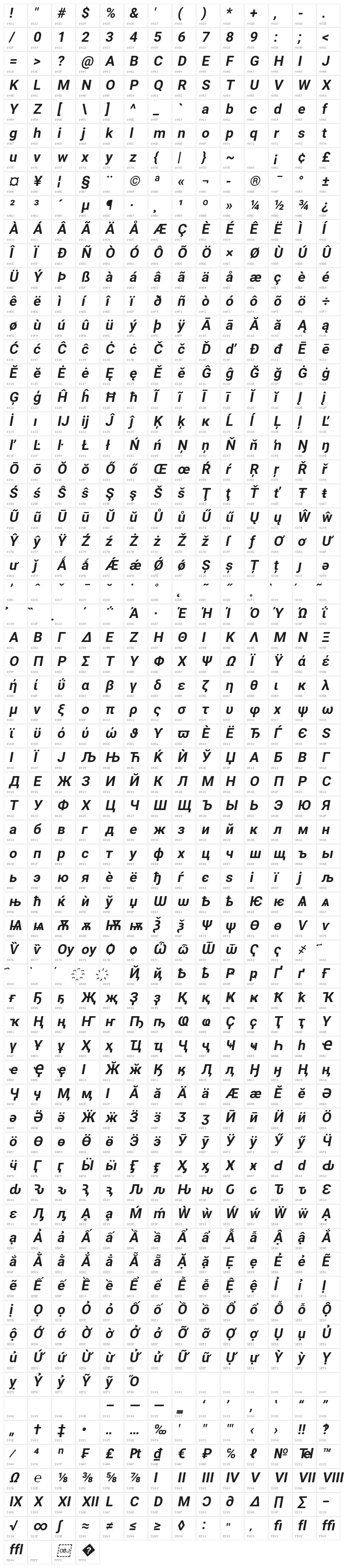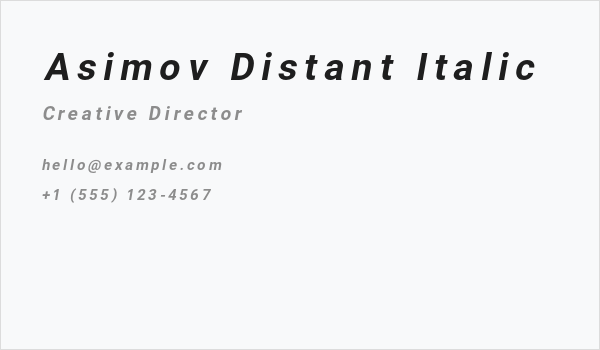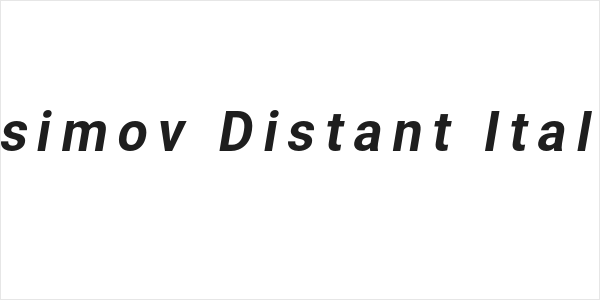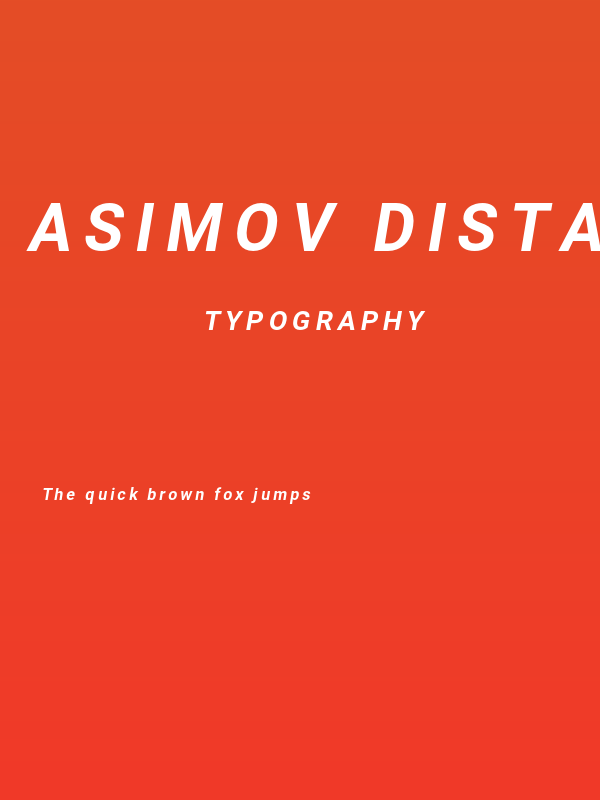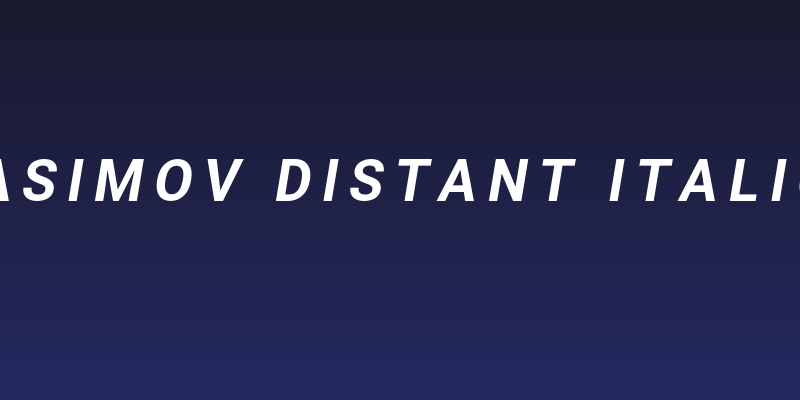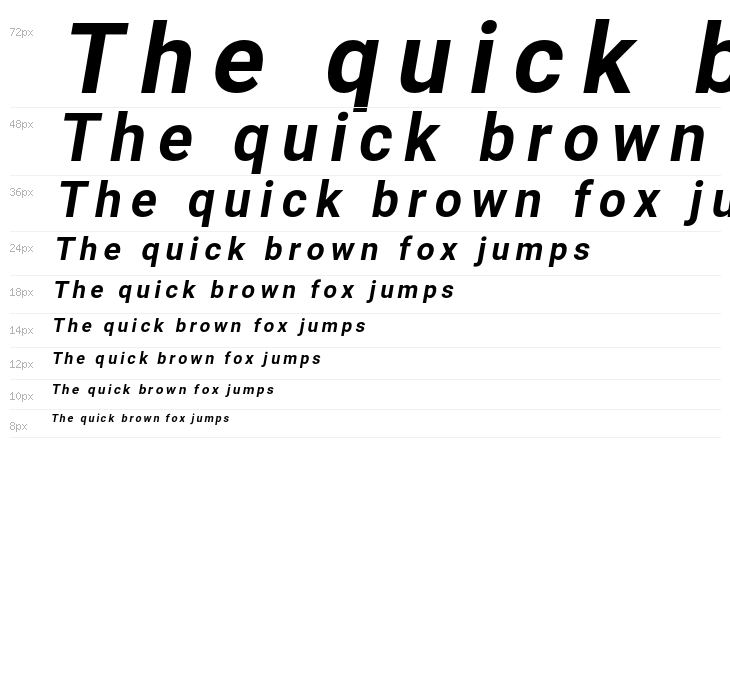
Asimov Distant Italic Font
Asimov Distant Italic Description
This font features a sleek, modern design with a distinct italic slant, giving it a dynamic and forward-moving appearance. The characters are clean and sans-serif, offering a contemporary feel that is both professional and approachable. The uniform stroke width across the characters provides a consistent and harmonious look, while the slight tilt adds a touch of elegance and motion. The font includes a full set of uppercase and lowercase letters, numerals, and a variety of special characters, making it versatile for various design needs. Its clarity and readability make it suitable for both digital and print media.
| Proposed Projects | Ideal for branding, advertising, and editorial design projects where a modern and dynamic look is desired. |